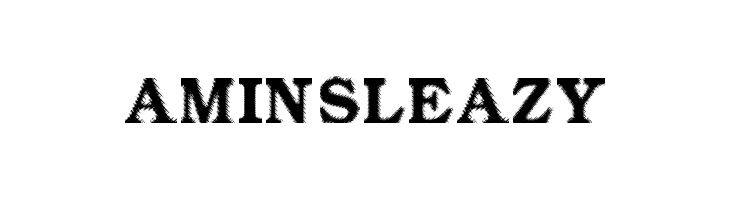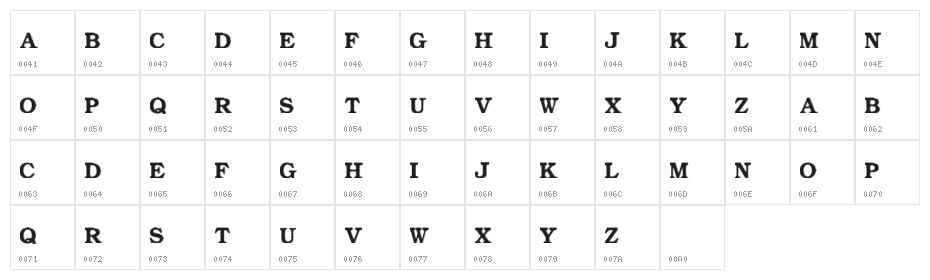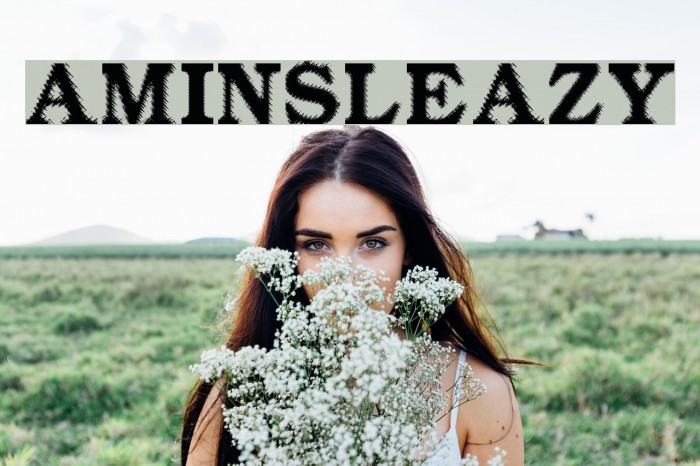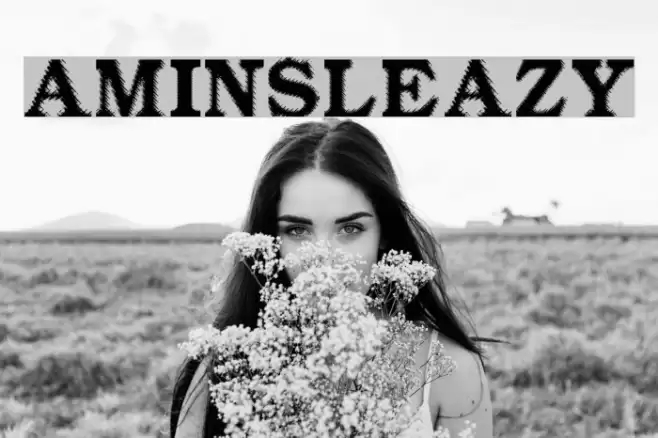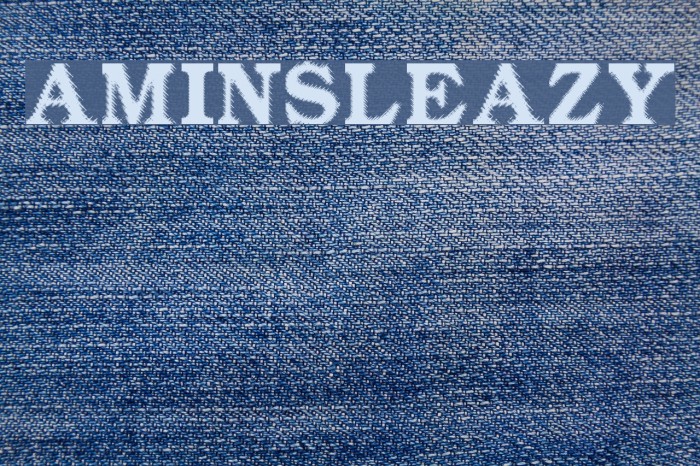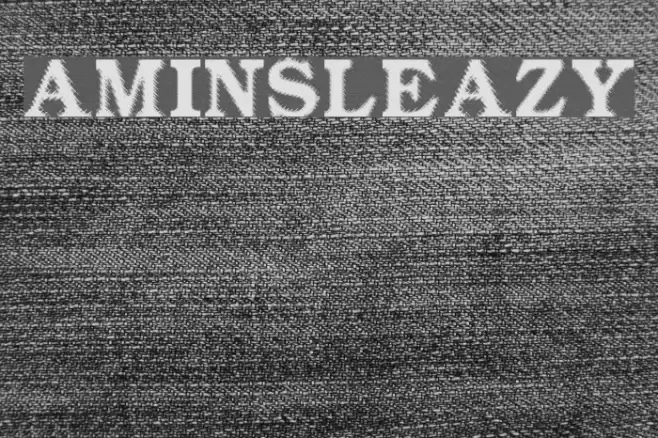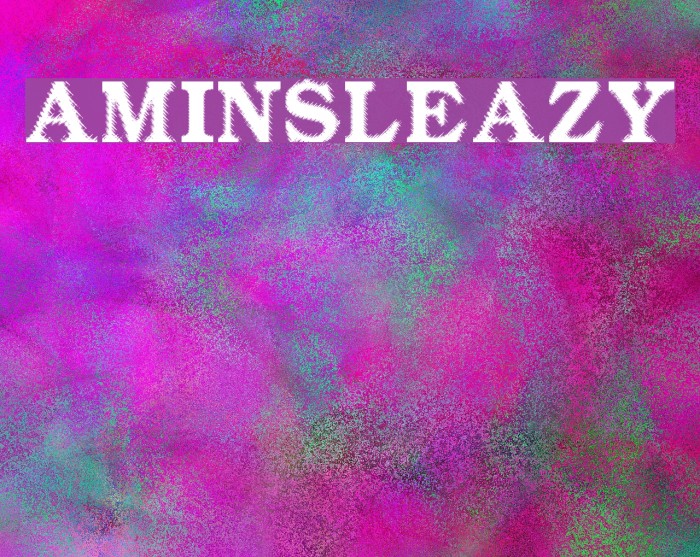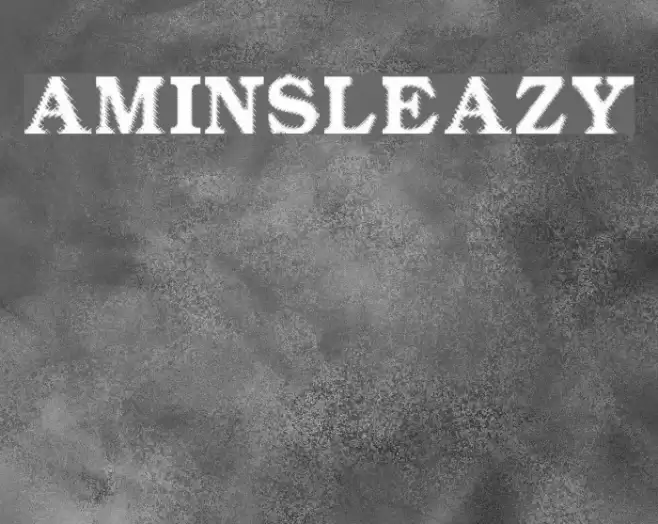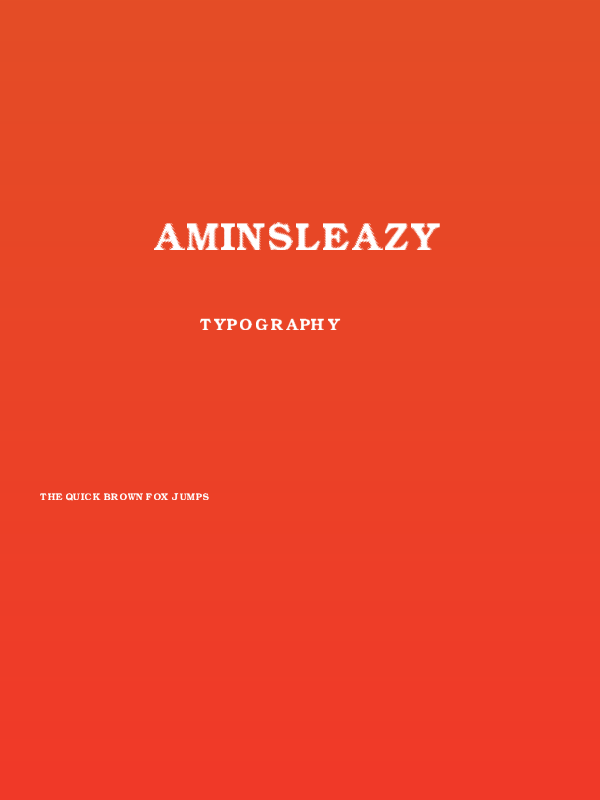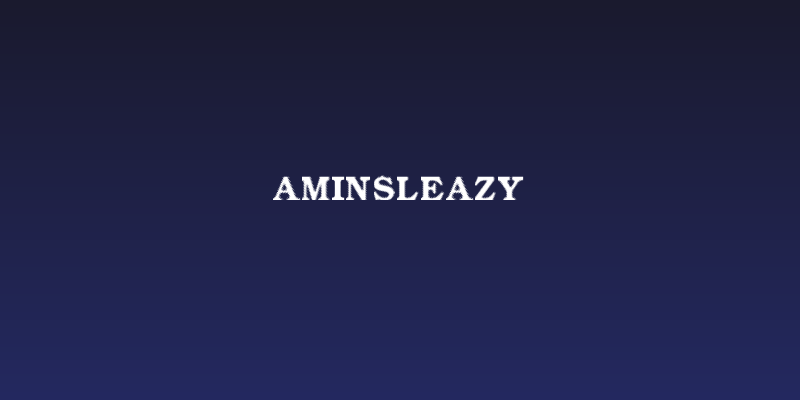
Amin_Sleazy Font
Amin_Sleazy Description
This font features a bold and striking design with a unique textured effect that gives each letter a sense of movement and energy. The uppercase letters are prominently displayed, showcasing a serif style with sharp edges and a slightly distressed appearance. The texture adds a dynamic and edgy feel, making it stand out in any design. The overall look is both modern and artistic, suitable for projects that require a bold statement.